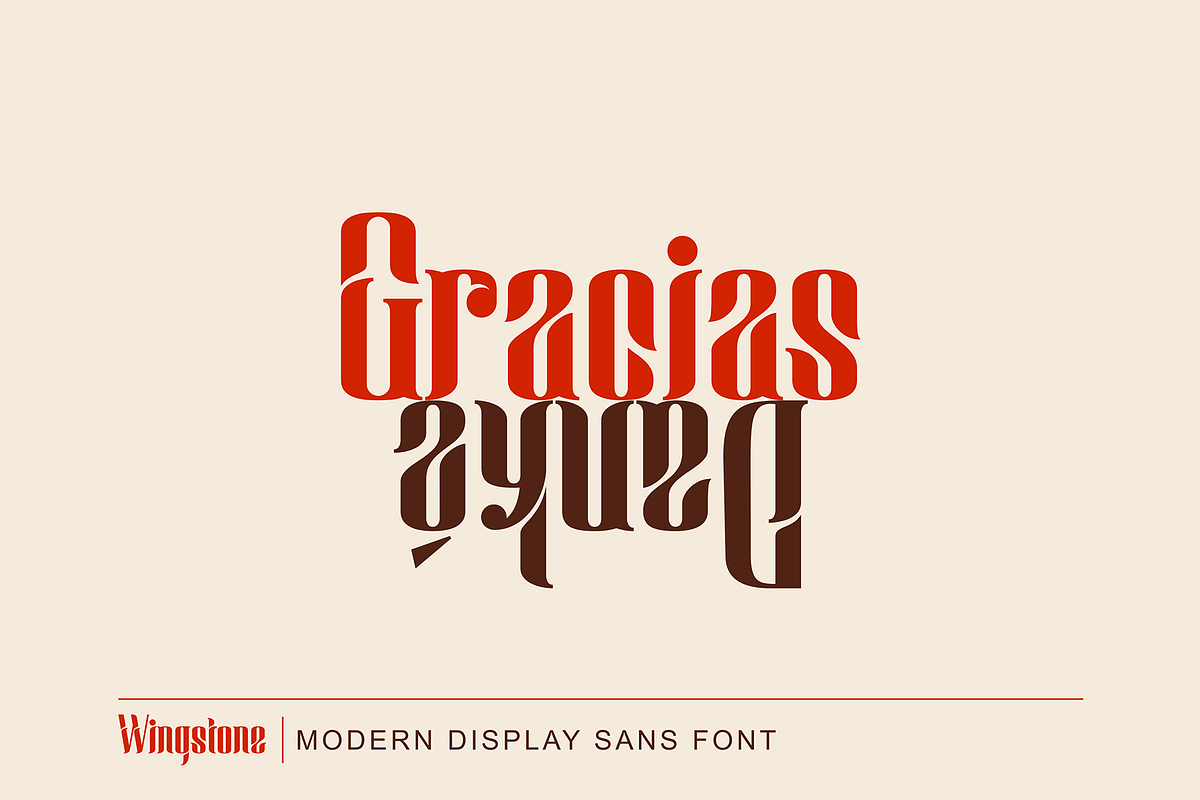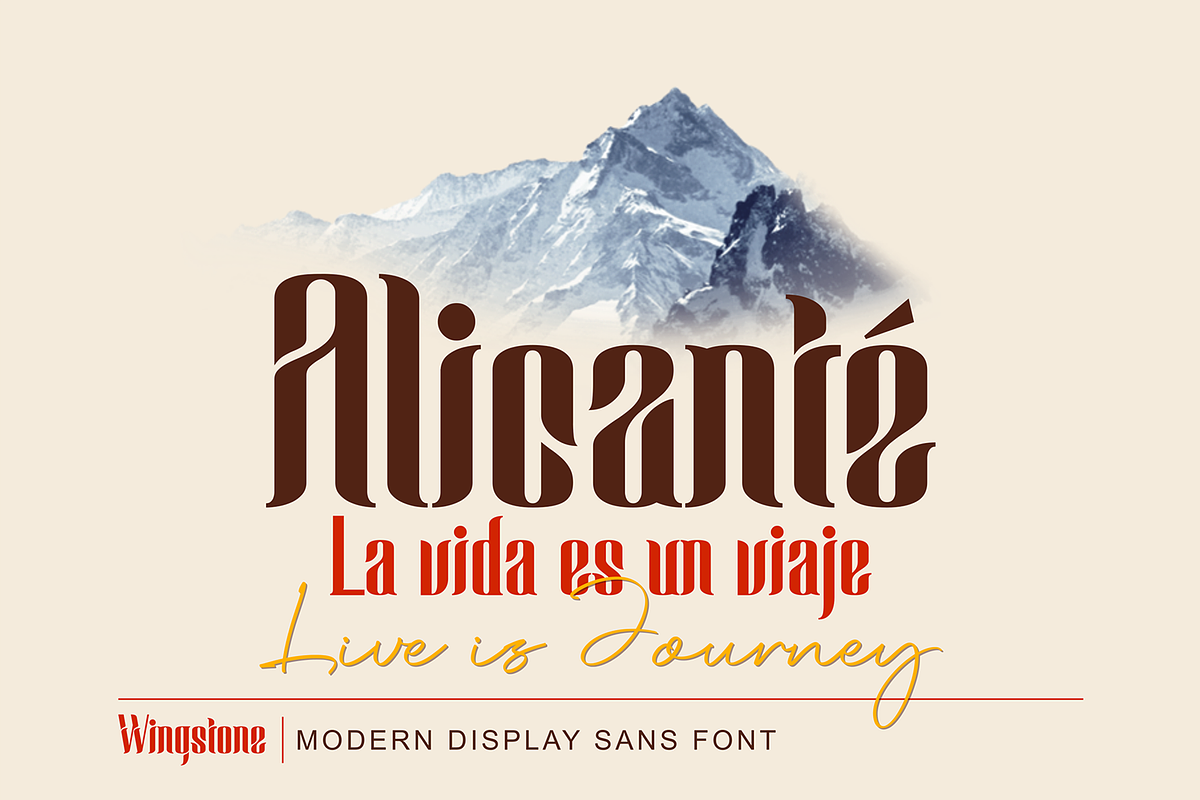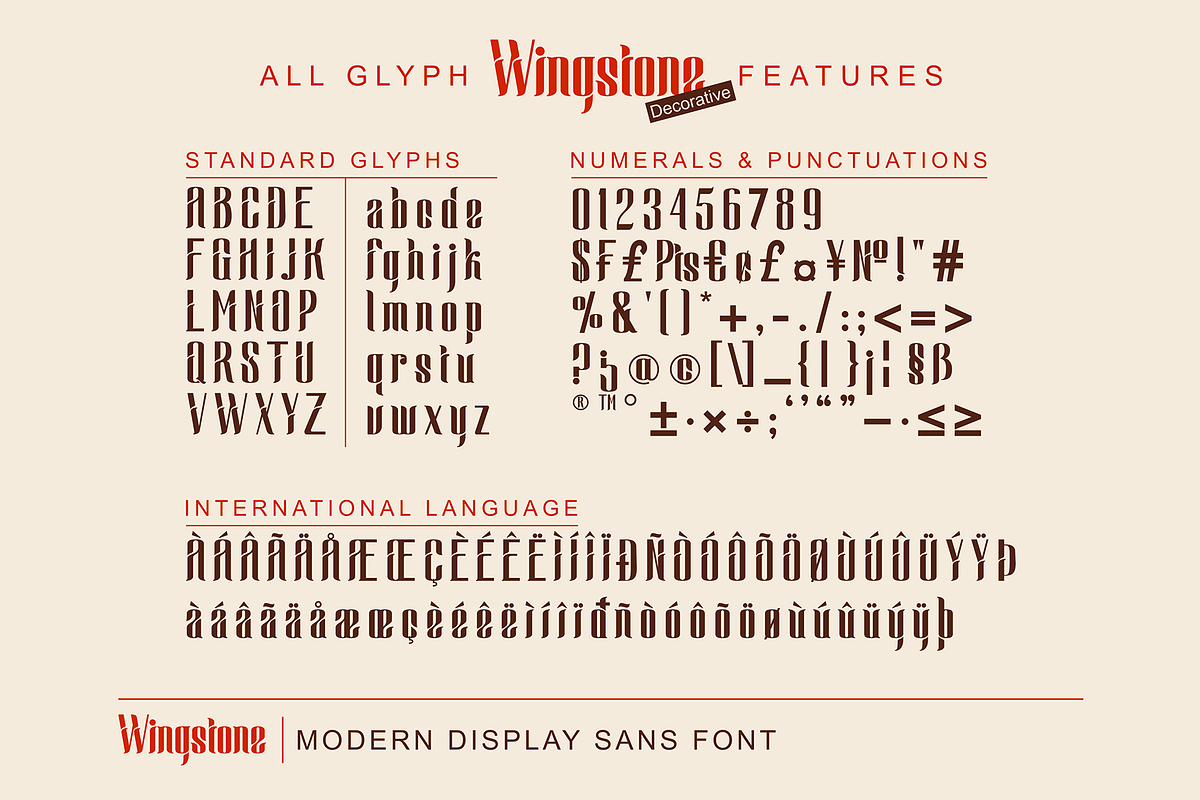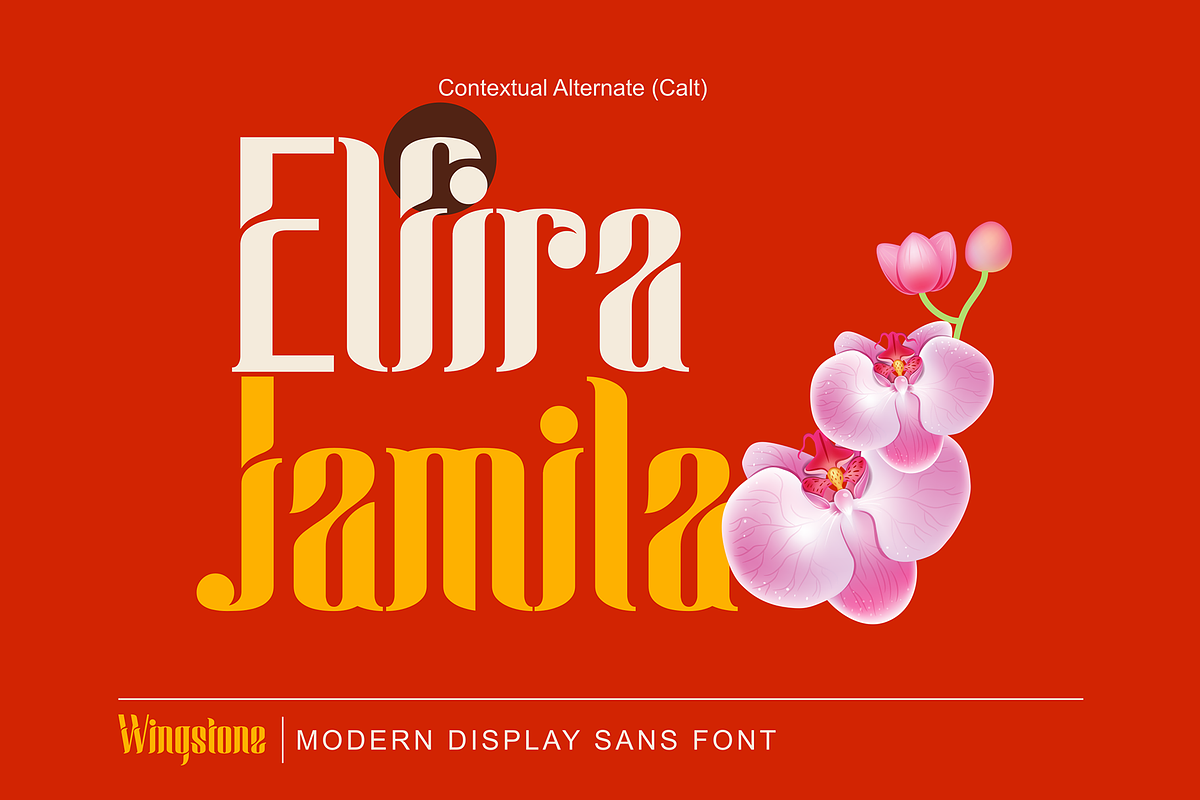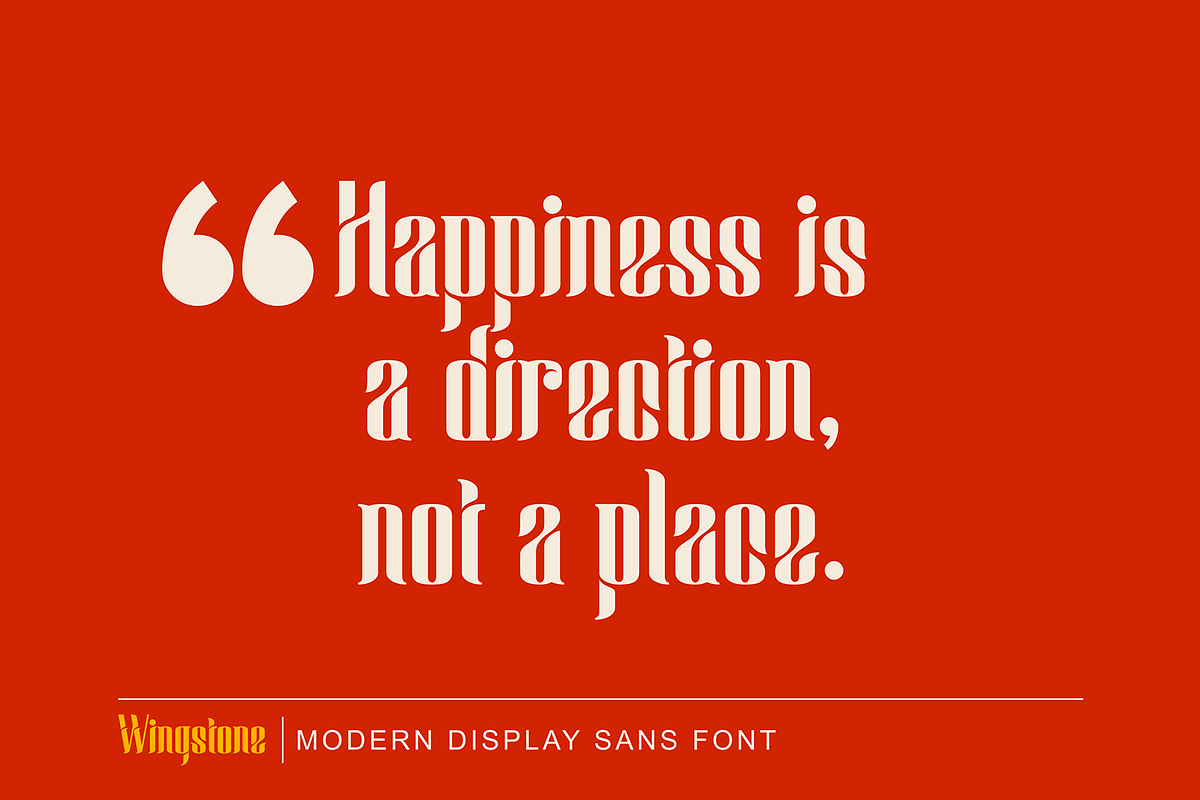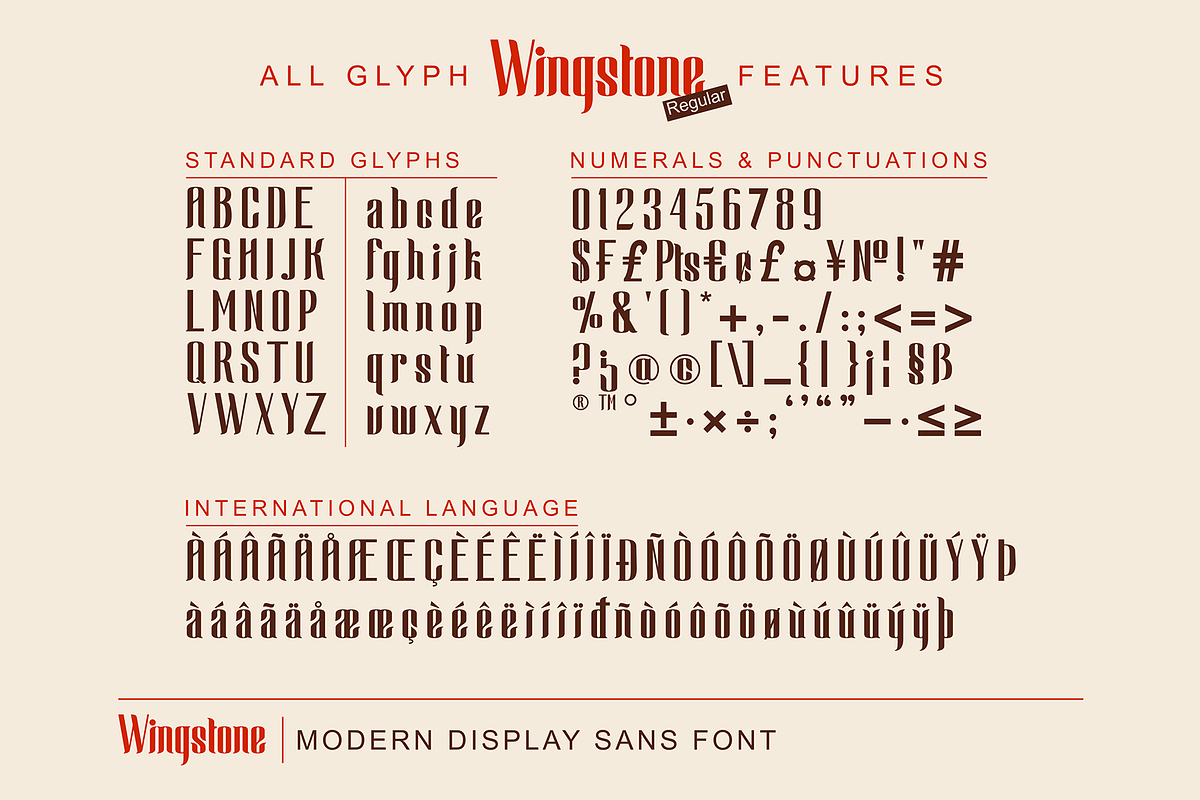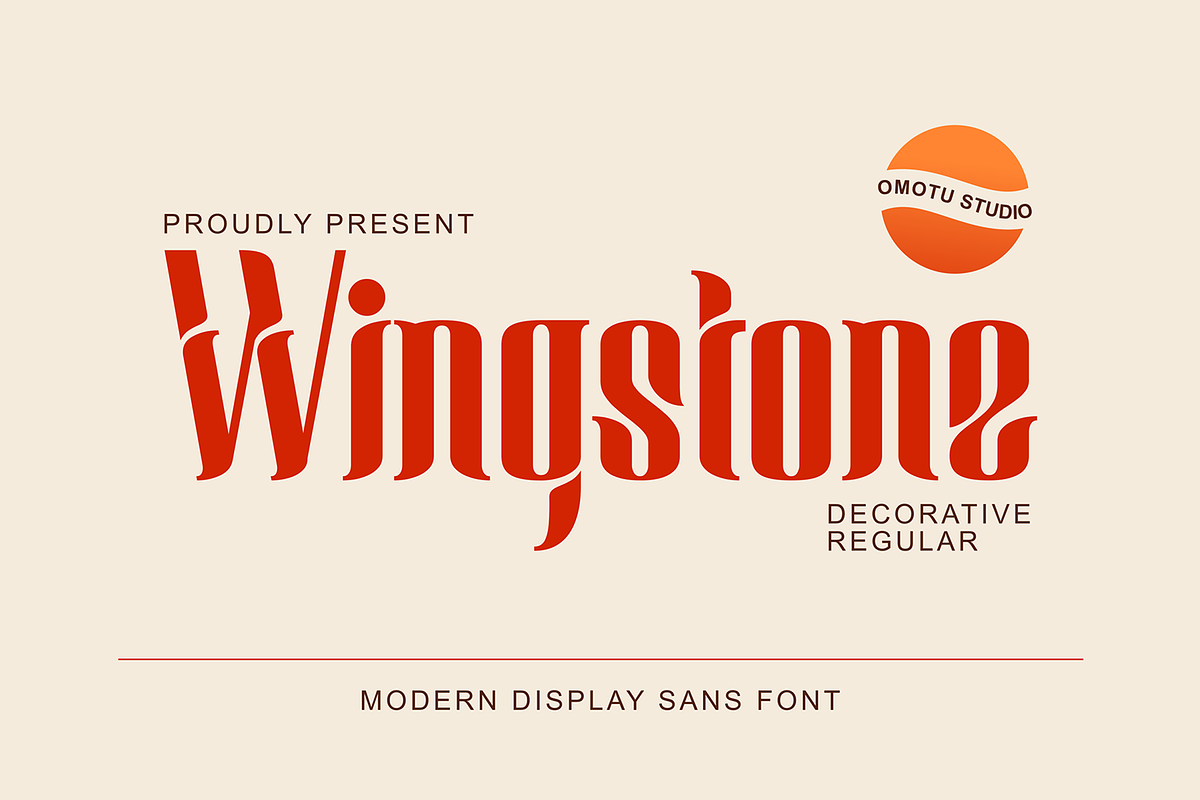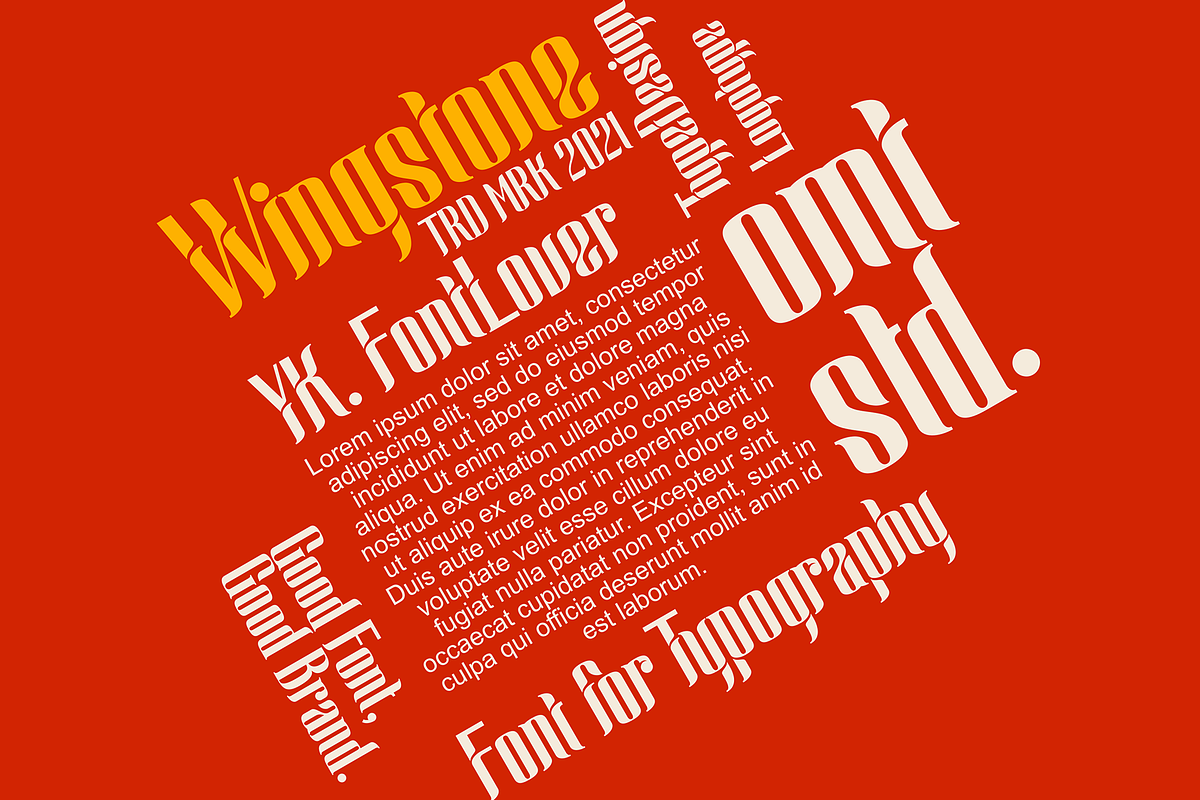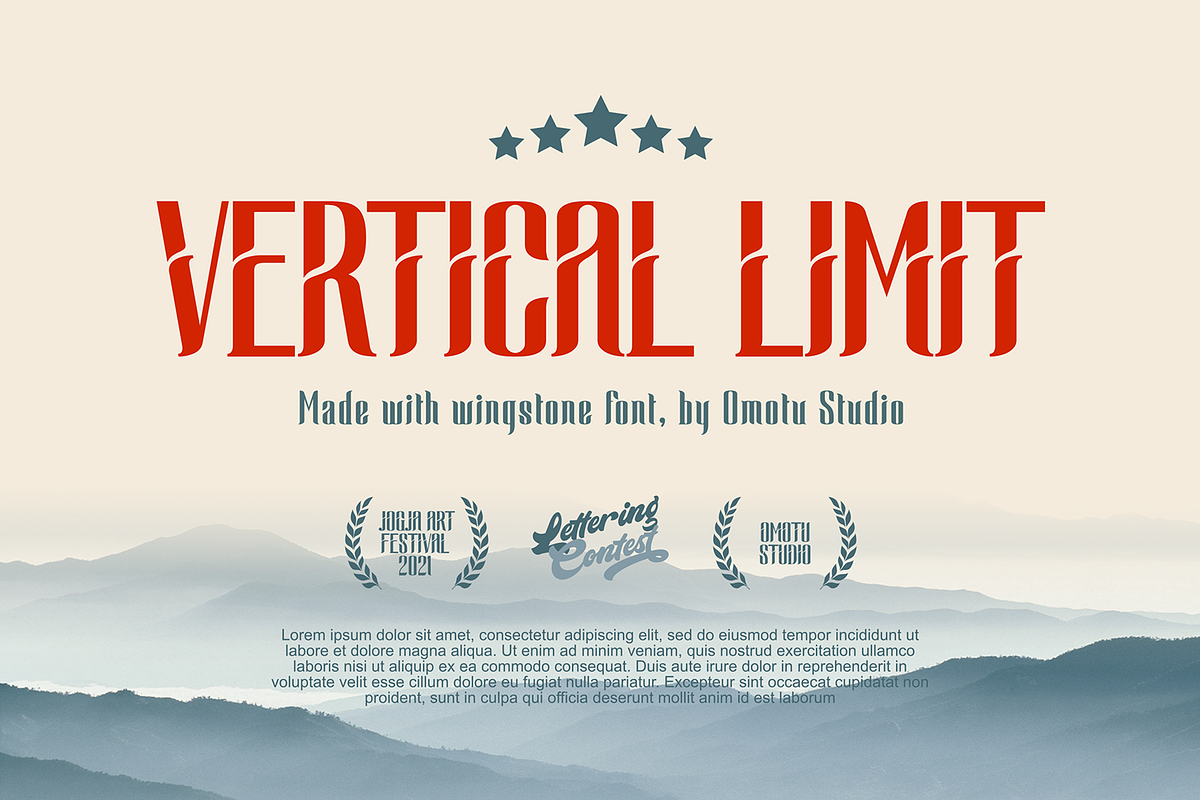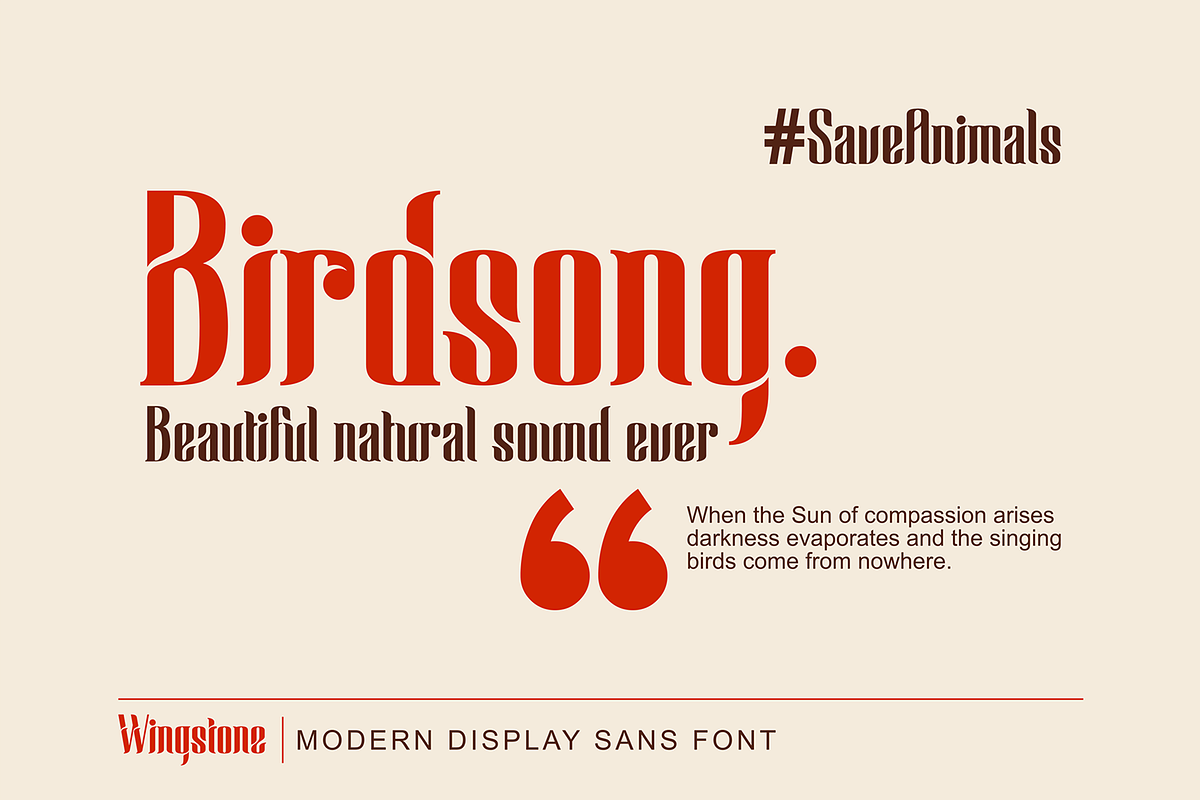
Wingstone
Wingstone is a modern beautiful display sans font. Comes with 2 styles, decorative and regular. Suitable for logotype, branding, packaging design, poster design, website/display, editorial, headline, advertising, and more.
- Features: Uppercase, lowercase, numerals, punctuations, contextual alternates